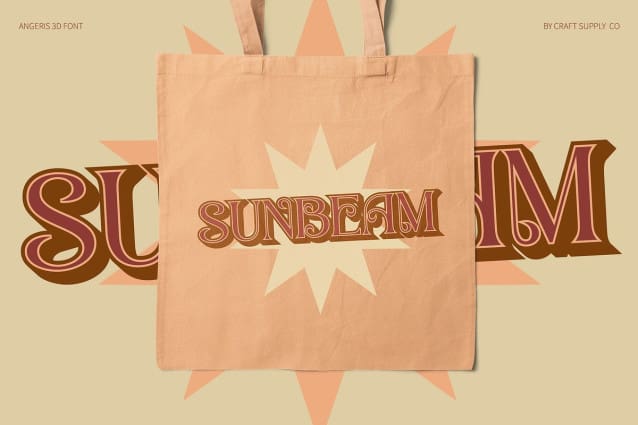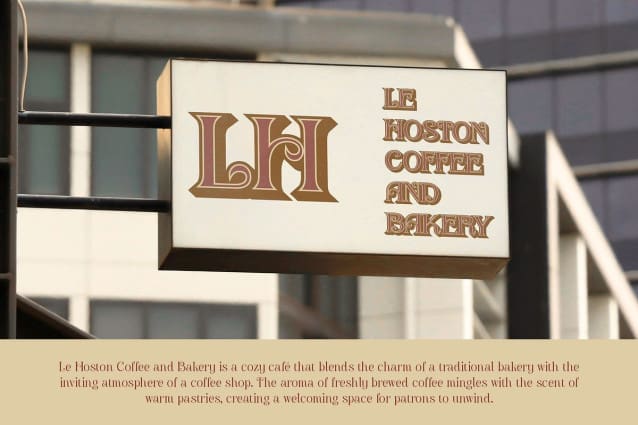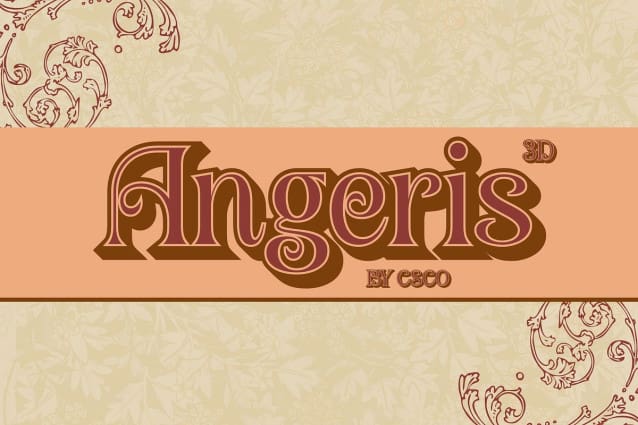
Angeris 3D Font
Angeris 3D Font is a captivating serif font that beautifully merges the enchanting elements of Art Nouveau with retro aesthetics and Renaissance elegance. Its intricate design showcases flowing curves and ornamental details that are a hallmark of this artistic movement, evoking a timeless charm that appeals to a modern audience. The striking 3D effect adds an extra layer of depth and dimension, making each character stand out and engage the viewer.
Sophisticated Design for Diverse Applications This font is perfect for projects that require a touch of sophistication and artistic flair. Whether used for branding, invitations, or artistic designs, Angeris 3D delivers a sense of nostalgia while infusing a contemporary twist. Its elegant appearance makes it suitable for upscale marketing materials, luxury branding, and any design that seeks to convey refinement and creativity. The combination of intricate detailing and modernity ensures that your message is communicated with style and grace.
Evokes Nostalgia with a Modern Touch Angeris 3D evokes a sense of nostalgia, celebrating the beauty of historical design while ensuring it remains relevant in today’s visual landscape. This makes it an ideal choice for projects that aim to bridge the gap between the past and present. Its rich aesthetic not only honors classic styles but also invites viewers to experience a fresh perspective, blending historical elegance with modern sensibilities.